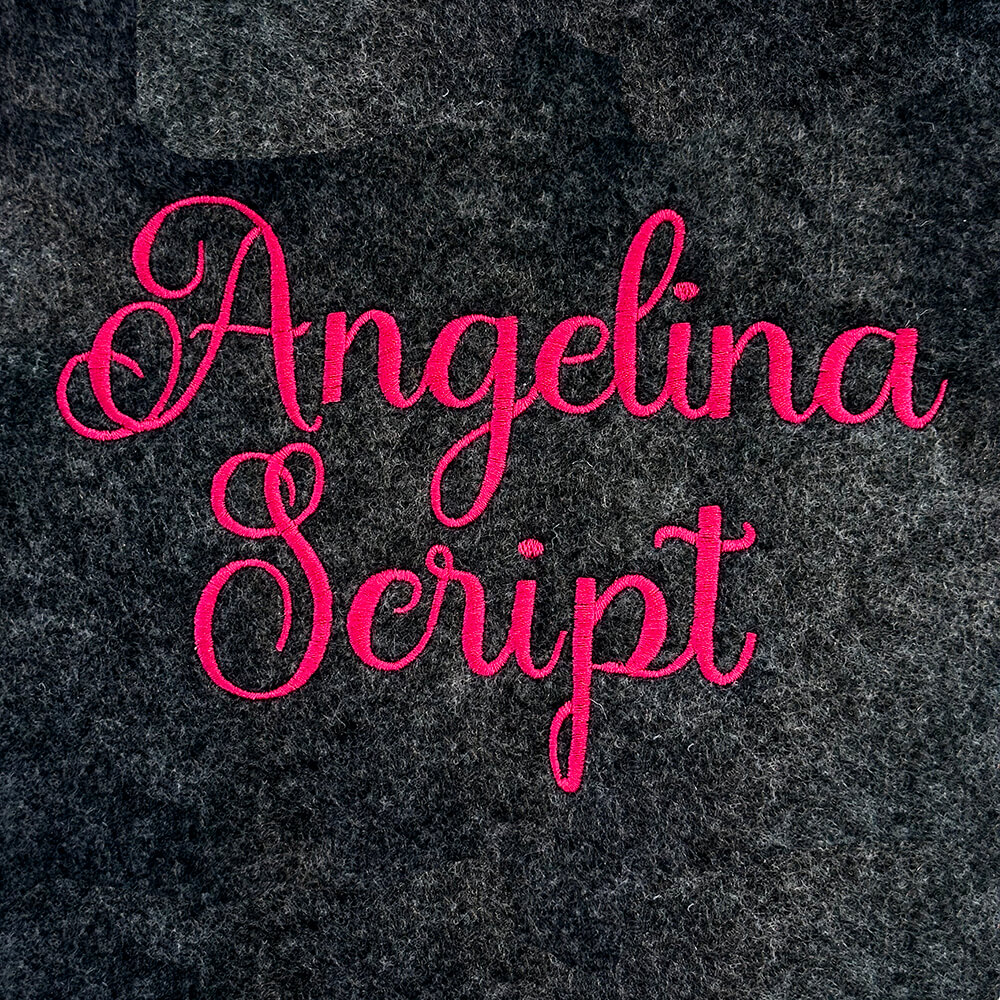
Angelina Script Font
The Angelina Script Embroidery Font features a graceful, handwritten style with smooth, connected strokes that stitch out beautifully.
Angelina Script Font